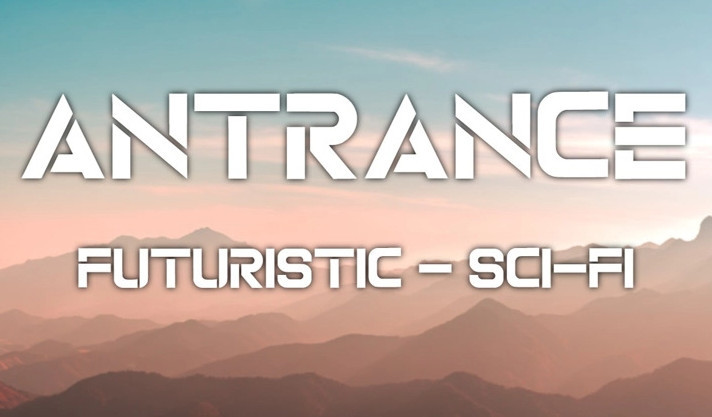
Antrance Font
Antrance Display Font, The font is designed in futuristic SCI-FI style. Add it confidently to your favorite creations and let yourself be amazed by the outcome generated.